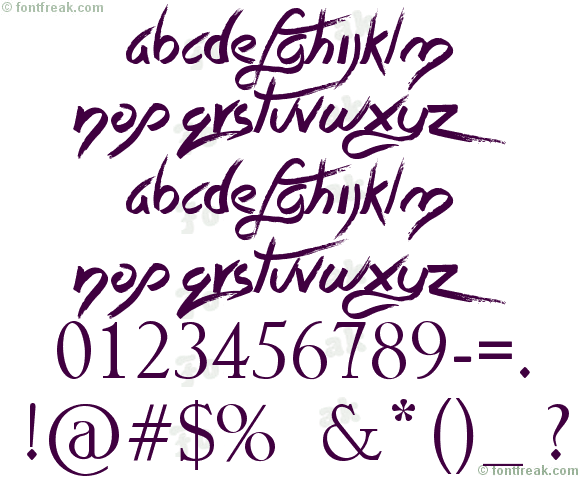
Quite Chocolatey
The Quite Chocolatey font by Jonathan S. Harris is a captivating display typeface that exudes a playful and artistic charm, making it ideal for a variety of creative projects. This handwritten font showcases a unique brush script style, characterized by its dynamic strokes and fluid letterforms. The irregular stroke weight adds an organic feel, while the slight contrast between thick and thin lines enhances its visual interest. The spacing between letters is thoughtfully designed, allowing for easy readability without sacrificing its artistic flair.
The Quite Chocolatey font is particularly well-suited for use in wedding invitations, where its whimsical design can evoke a romantic and personalized touch. It's also an excellent choice for restaurant menus, adding a sense of warmth and friendliness that can entice diners. Additionally, this font can elevate movie posters by providing a bold and eye-catching headline, capturing the attention of potential viewers. Content creators will find it useful for social media graphics, where its unique character can help convey a brand's personality effectively.
Targeted towards graphic designers, small business owners, and content creators, Quite Chocolatey offers a versatile option for those looking to add a distinctive flair to their projects. Its freeware licensing makes it accessible for anyone seeking to enhance their designs without budget constraints.
What truly sets the Quite Chocolatey font apart is its ability to combine artistry with functionality, lending a handcrafted touch to any text while remaining legible and appealing. Whether you are designing for print or digital media, this font is sure to leave a lasting impression. Don't miss out on the opportunity to add a unique element to your designs with a Quite Chocolatey font free download, and let your creativity flow.